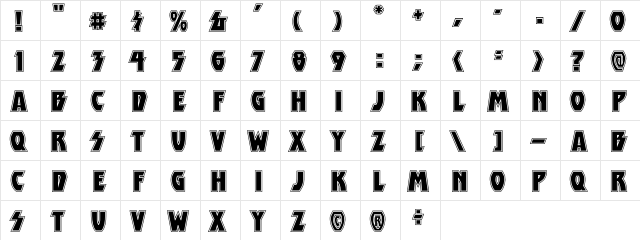
CCDestroyerOutline Regular
| Foundry | Active Images |
| Designer | John 'JG' Roshell |
Design Context for CCDestroyerOutline Typeface
CCDestroyerOutline is built around its visual character rather than neutral utility — its distinctive forms are designed to make an impression at display sizes.
Font Pairing: Pair with a clean neutral sans-serif for body copy to let CCDestroyerOutline's character lead without overwhelming the composition.
Pro Tip: Treat CCDestroyerOutline as the centrepiece of your typographic hierarchy. One strong heading set in a decorative face can carry an entire layout.